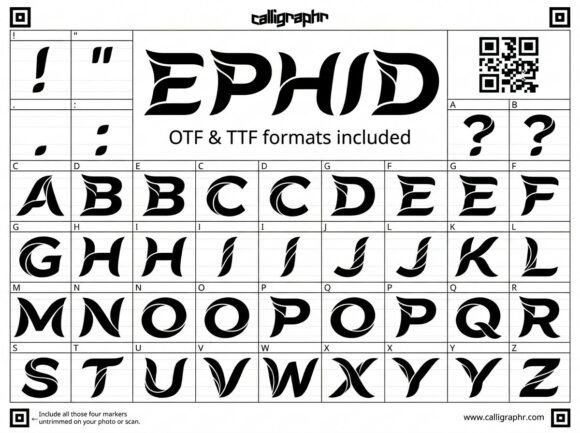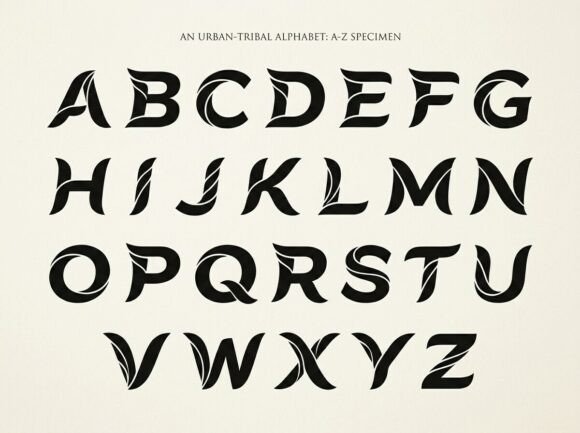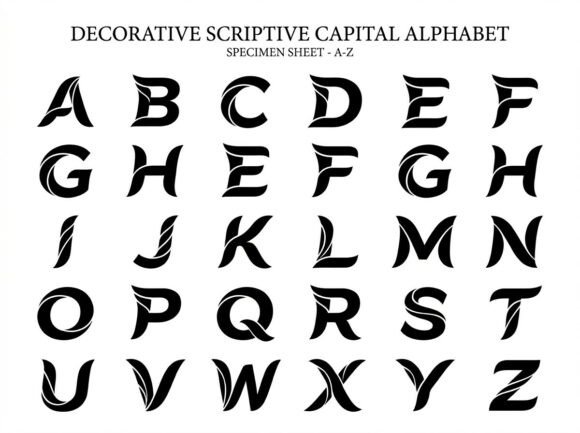
Unleash Your Designs with Ephid Font: The Ultimate Bold Display Font
I still remember the frustration of working on a high-energy project for a racing team, only to find that my chosen font fell flat. The design needed something that could convey speed, power, and a sense of dynamic movement. That’s when I stumbled upon Ephid, a bold, dynamic display font that instantly elevated my design. If you’re a designer, crafter, or creative hobbyist looking for a font that packs a punch, you’re in the right place.
What Makes Ephid Font So Special?
Ephid is a bold, dynamic display font built for speed and impact. Its thick, italicized letterforms feature sharp, aerodynamic flourishes and sweeping negative space cutouts that mimic the movement of rushing air. This aggressive posture and heavy visual weight make it perfect for performance automotive branding, competitive sports logos, high-tech gaming headers, and futuristic editorial titles.
My Honest Review of Ephid Font
- ✅ High-impact letterforms: Ephid’s bold, italicized letters are sure to grab attention.
- ✅ Aerodynamic flourishes: The sharp, sweeping lines evoke a sense of speed and movement.
- ✅ Versatile: Suitable for a wide range of applications, from logos to headers.
- ✅ Handcrafted precision: Ephid’s unique design gives it a sense of precision and craftsmanship.
- ⚠️ Legibility at small sizes: Ephid’s bold design can make it difficult to read at very small sizes.
- ⚠️ Limited use cases: While versatile, Ephid’s aggressive style may not be suitable for more traditional or formal designs.
The Story Behind Ephid Font
Ephid was designed with one goal in mind: to create a font that embodies speed, power, and movement. The designer, inspired by the world of high-performance automotive and competitive sports, set out to create a font that would capture the essence of these high-energy environments. The result is Ephid, a bold, dynamic display font that’s sure to ignite your designs.
Q: What type of projects is Ephid best suited for?
A: Ephid is perfect for performance automotive branding, competitive sports logos, high-tech gaming headers, and futuristic editorial titles.
Q: Can I use Ephid for body text?
A: While Ephid is a beautiful font, it’s best suited for display text. Its bold design can make it difficult to read at small sizes.
Q: Does Ephid support OpenType features?
A: Yes, Ephid supports OpenType features, including stylistic alternates and glyphs.
Q: Is Ephid easy to read?
A: Ephid’s bold design makes it more suitable for display text than body text. However, its clean lines and simple shapes make it relatively easy to read at larger sizes.